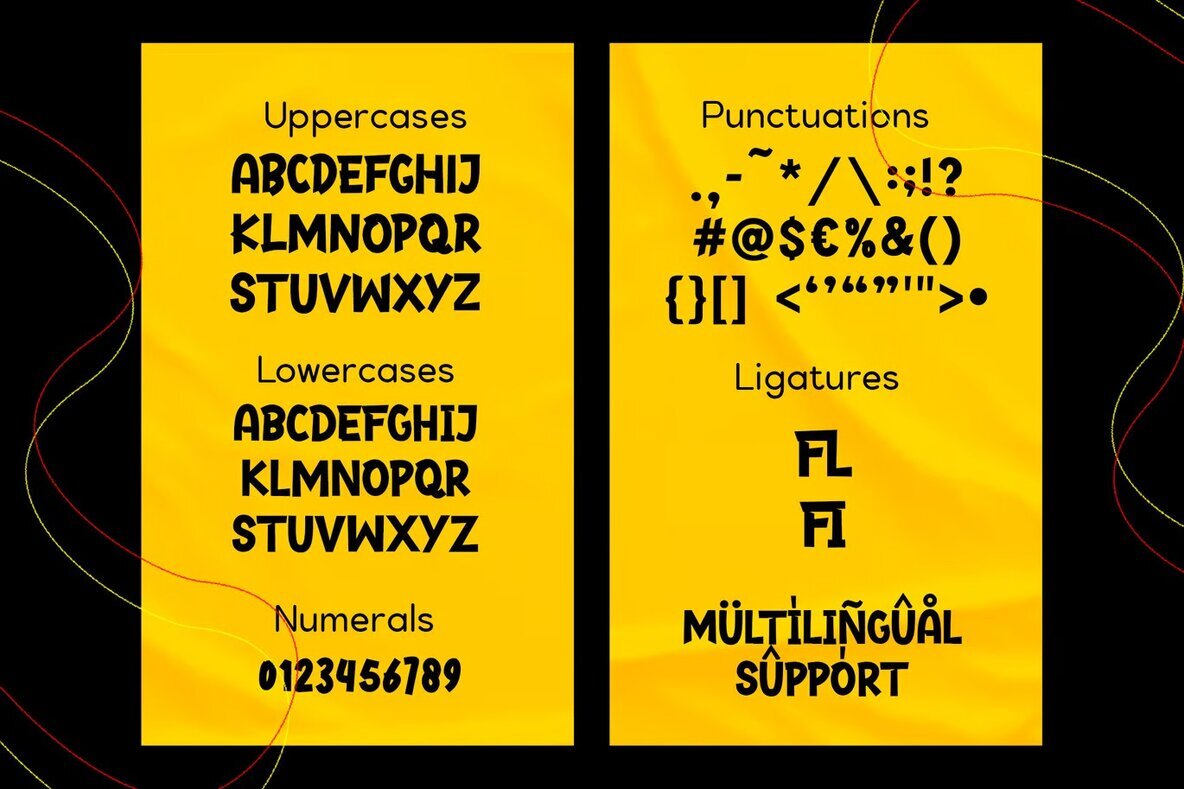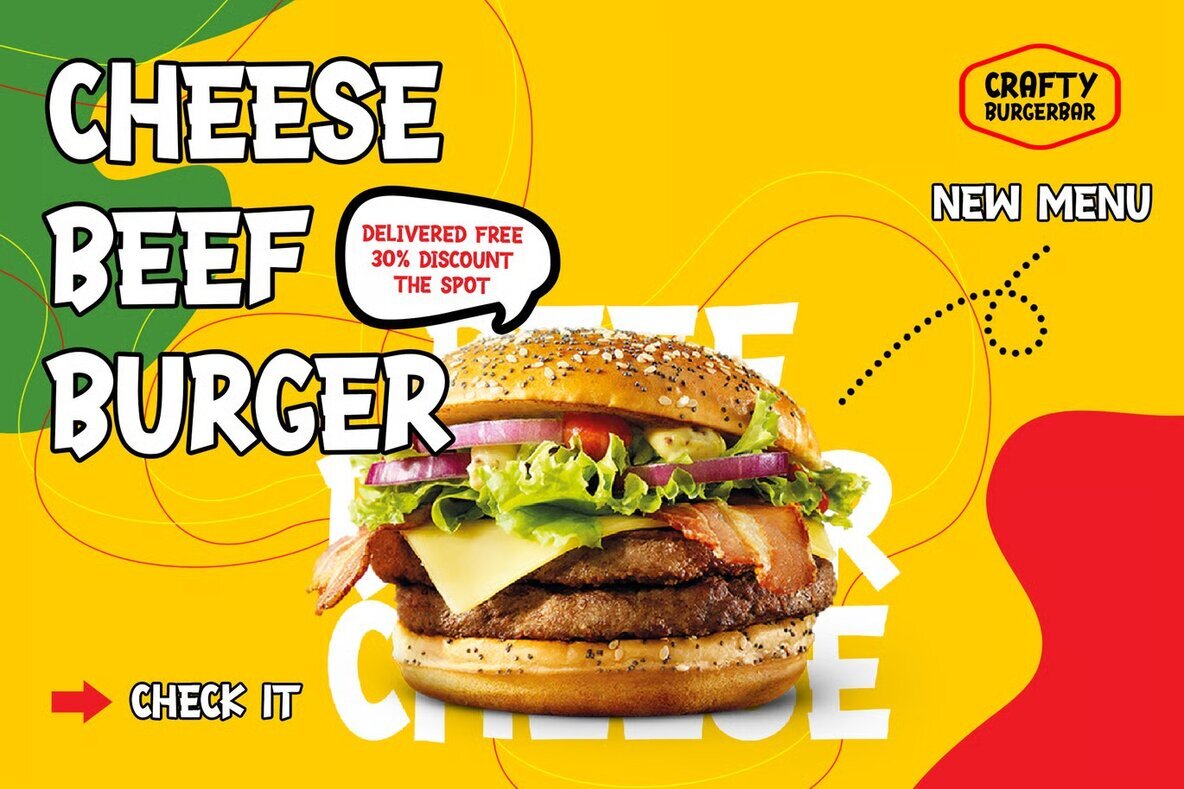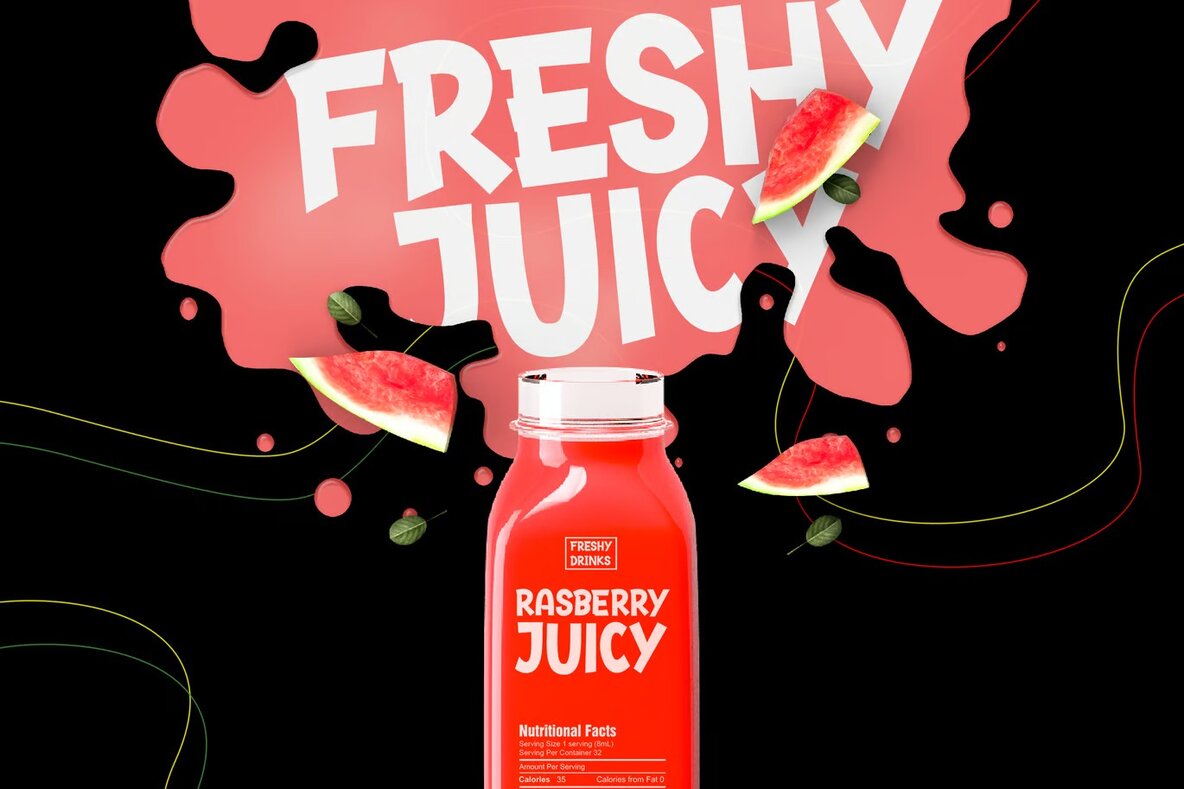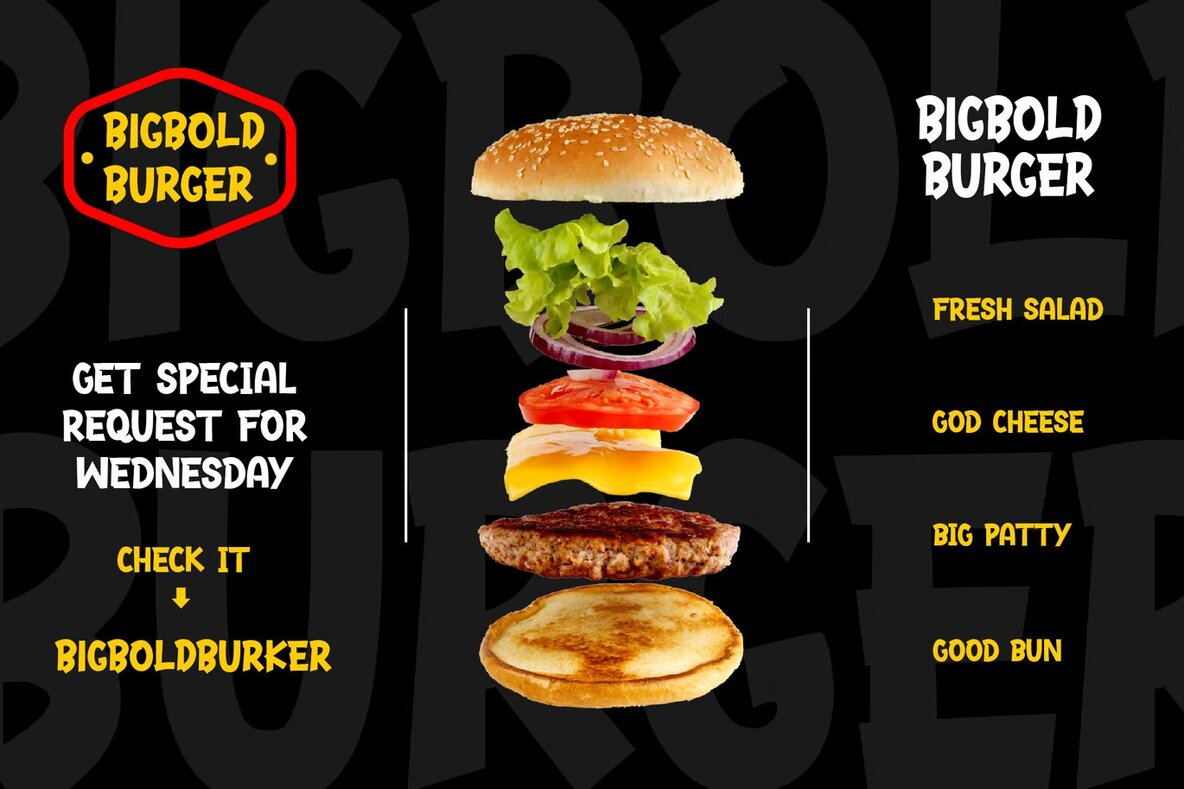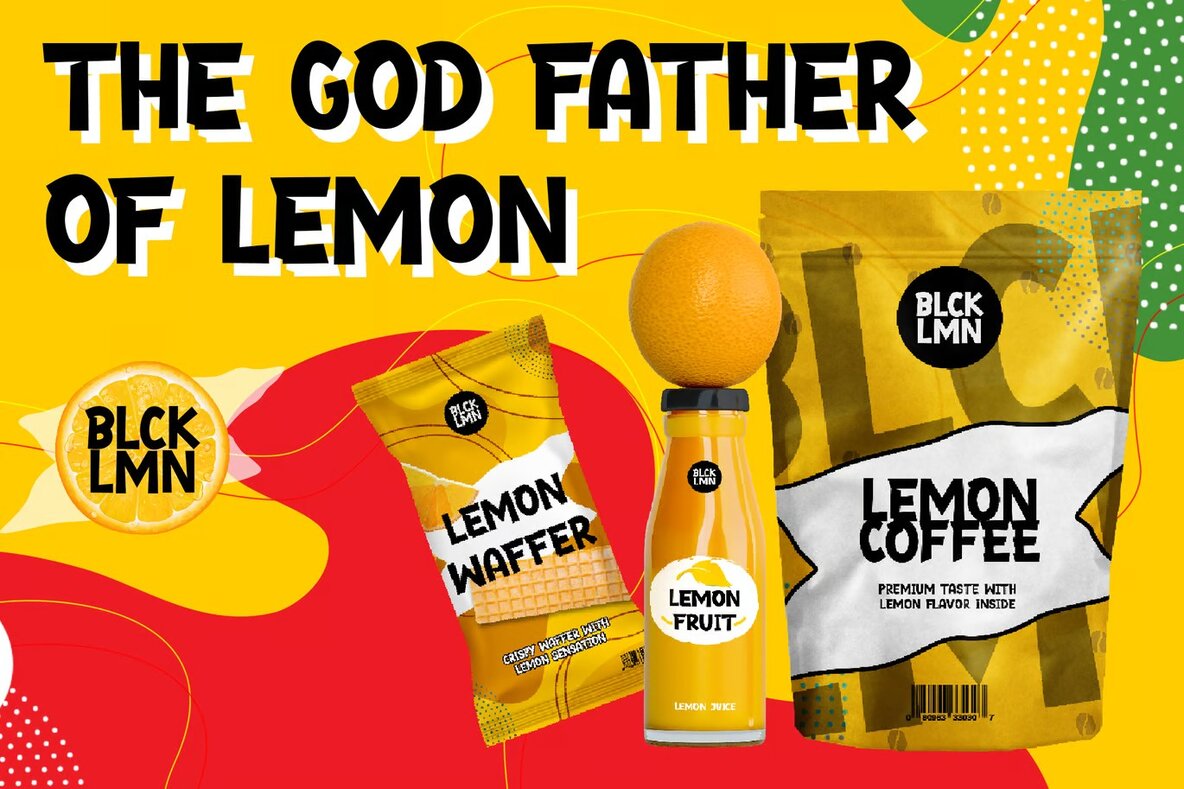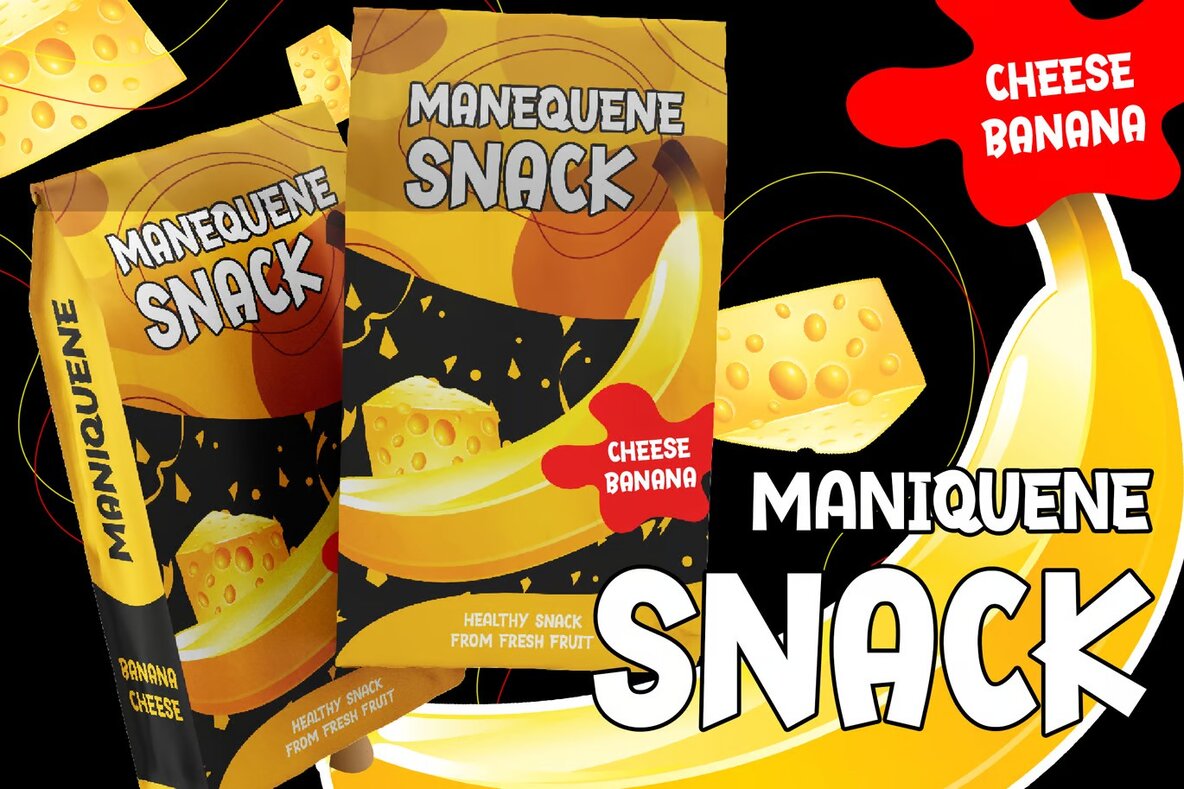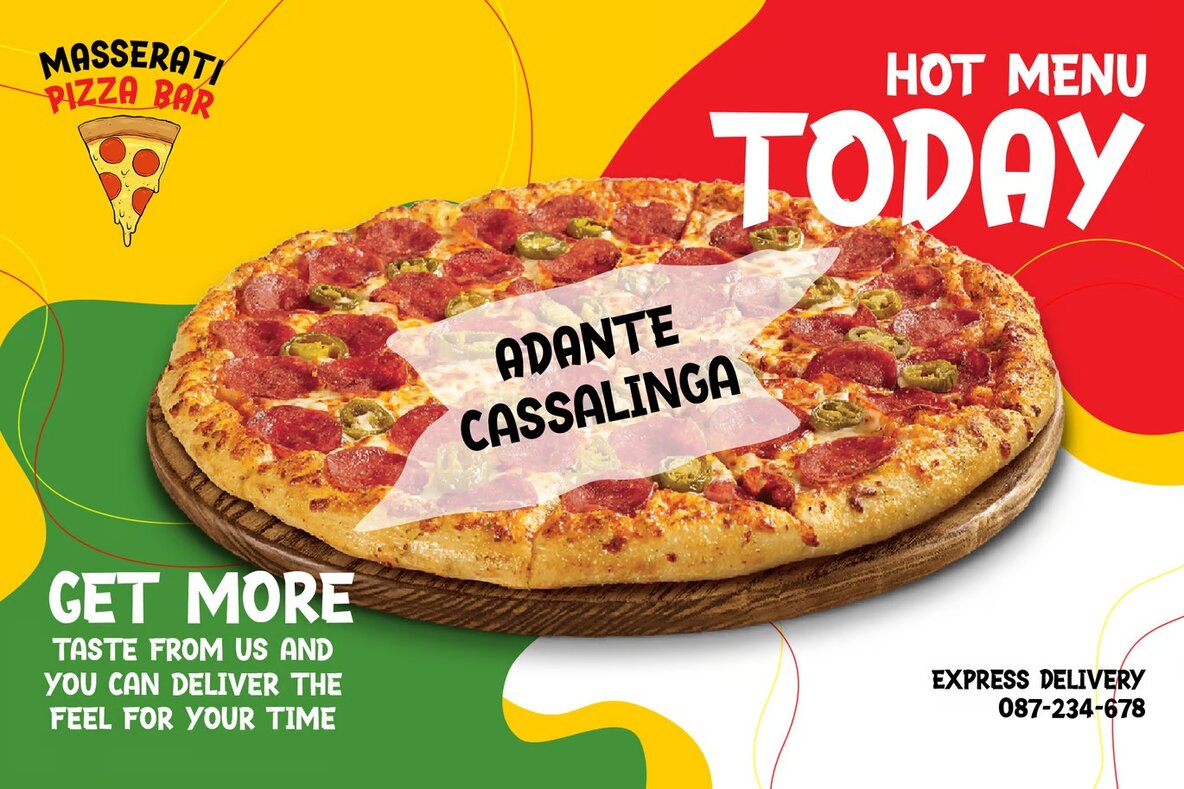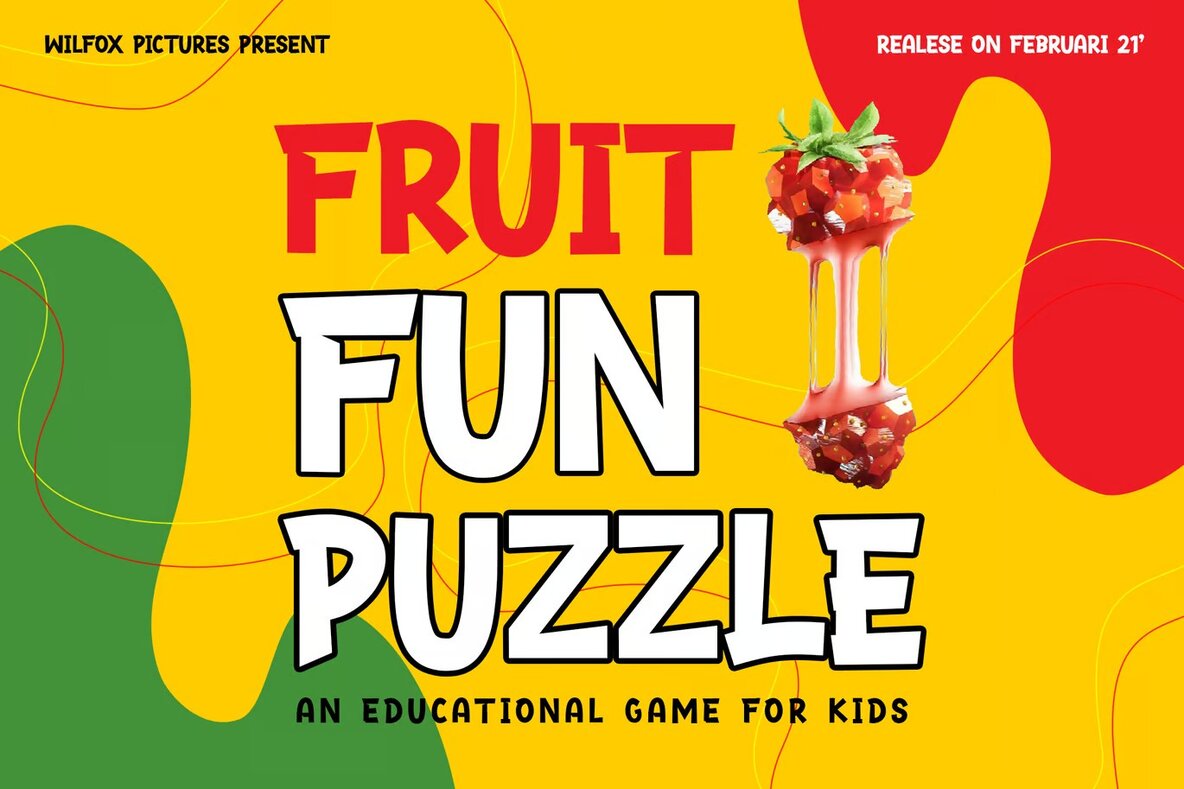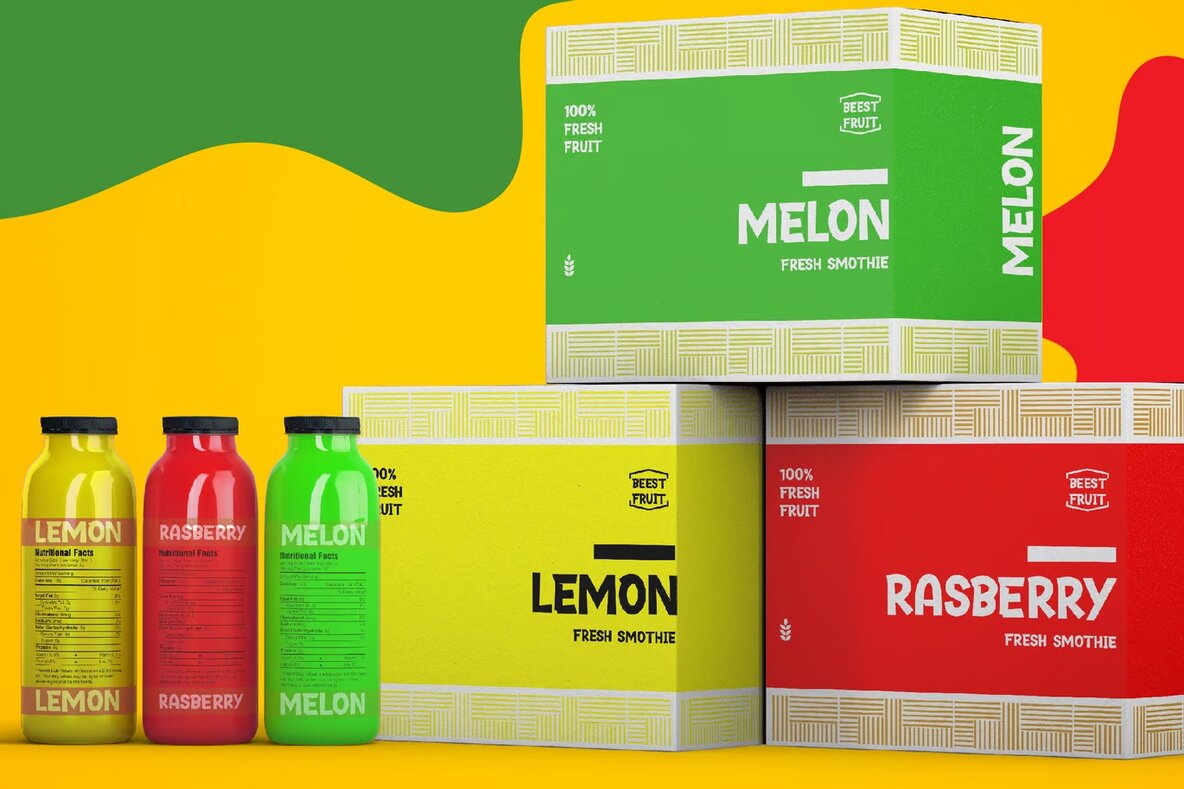
Graphone Font
Graphone
Graphone is a versatile all-caps sans serif font that brings a casual and playful vibe to any design project. Its bold and engaging style makes it ideal for a variety of uses, including kid game logos, snack packaging, fast-food branding, and kindergarten materials. With its cheerful character, Graphone lends itself well to creating eye-catching designs for children’s books, cartoons, and animations.
This font is perfect for designers aiming to bring a sense of fun and energy to modern advertising designs, toys branding, and poster quotes. Whether you're working on book covers, card designs, or websites, Graphone offers a hand-lettered look that stands out. Its versatility extends to food and beverage packaging, ensuring that your brand captures the attention it deserves.